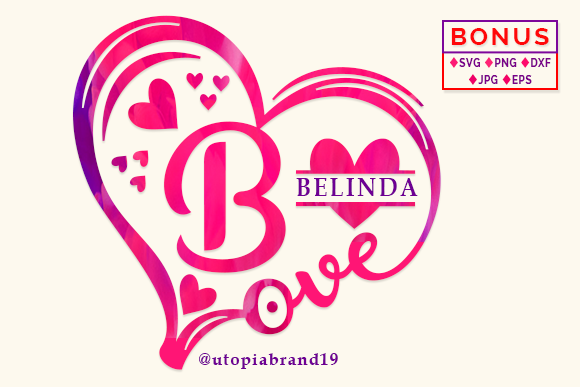
Discover the Timeless Charm of the Belinda Monogram Font
Have you ever been working on a project and suddenly stumbled upon the perfect font, making all the difference between a good design and an extraordinary one? For designers, this is a moment of pure bliss. For me, it was when I discovered the Belinda Monogram Font, and I knew I had to share it with you.
This refined decorative font is a treasure trove of charming ornaments, waiting to elevate your designs to the next level. Whether you’re creating wedding invitations, beautiful stationery art, eye-catching social media posts, or cute greeting cards, the Belinda Monogram Font is the perfect companion to bring your ideas to life.
As a designer, you understand the value of a well-chosen font in making your work stand out. The Belinda Monogram Font is a valuable addition to your toolkit, offering a genuine feel that’s hard to find in today’s digital landscape. So, get ready to fall in love with its timeless charm and take your designs to new heights!
Belinda Monogram Font Key Features
- Font Style: Script Monogram Font, ideal for creating elegant and sophisticated designs
- Character Count: Includes 36 uppercase and lowercase letters, as well as punctuation and special characters
- Size: Available in various font sizes, from 12pt to 72pt, allowing for flexibility in design
- Resolution: Supports high-resolution printing, making it suitable for use in various mediums, including business cards, invitations, and wedding stationery
- Unique Characteristics: Hand-drawn design with intricate details and ornate flourishes, creating a luxurious and sophisticated look
Designer Review: Belinda Monogram Font
Overall, I think the Belinda Monogram Font has a certain charm to it. It’s a bit quirky, but in a good way. I can see it working well for a variety of projects, from wedding invitations to custom signage.
Here are some things that really work well: ✨
- Unique, hand-drawn feel that adds a touch of personality to any design
- Well-crafted monogram elements that can be easily customized
- Support for both uppercase and lowercase letters
- Relatively large character set for a monogram font
However, there are a few limitations to keep in mind: ⚠️
- Some characters may not be as well-designed as others, which can create an uneven look
- Lack of ligatures can make text appear a bit clunky in certain situations
- Not ideal for projects that require a lot of text or complex typography
Overall, I think the Belinda Monogram Font is a solid choice for designers looking to add a bit of whimsy to their projects. While it may not be perfect, it’s definitely worth considering for the right kind of project.
Some popular use cases for the Belinda Monogram Font include:
– Personalized gifts and accessories
– Branding and marketing materials
– Digital designs and graphics
– Tips: Experiment with different font sizes and styles to create a unique look, and use the font in combination with other design elements to create a cohesive visual identity.